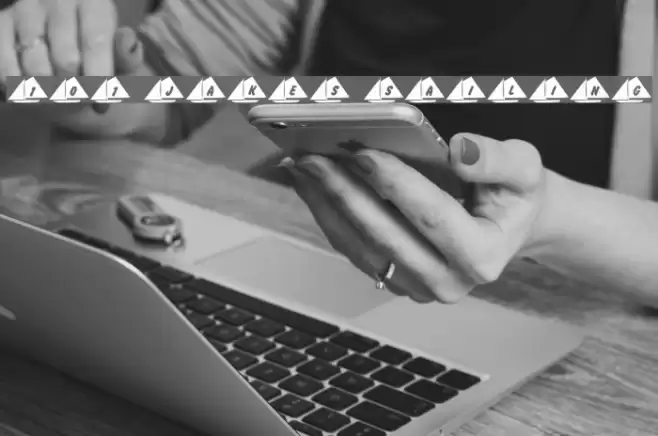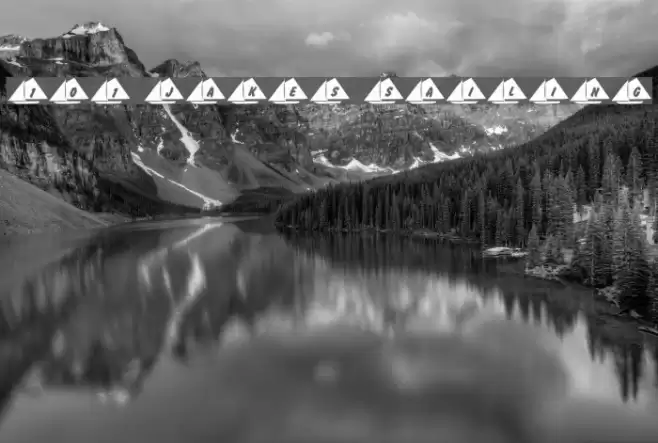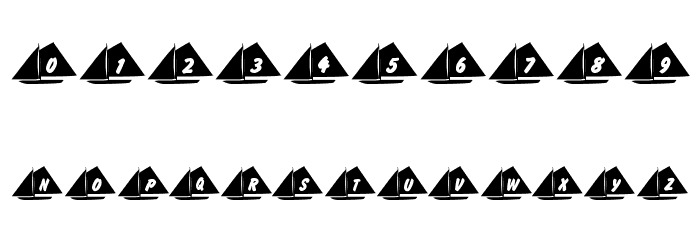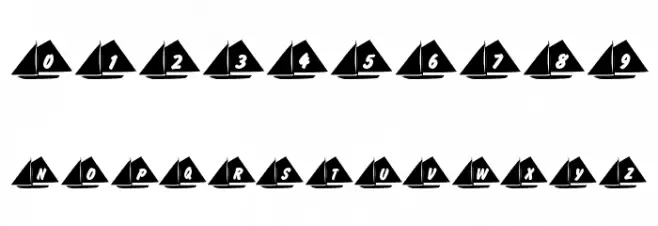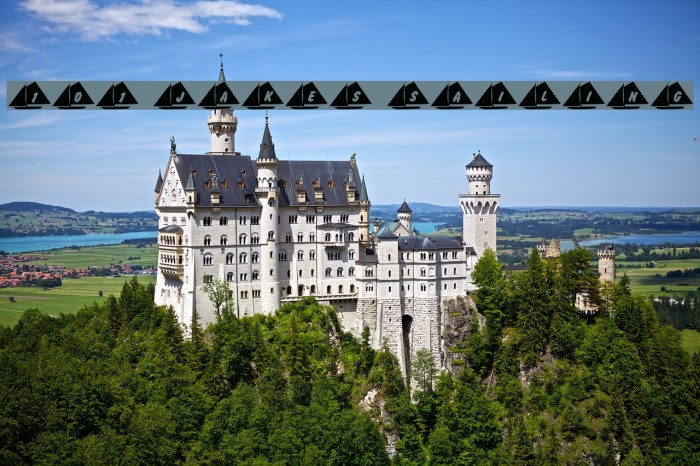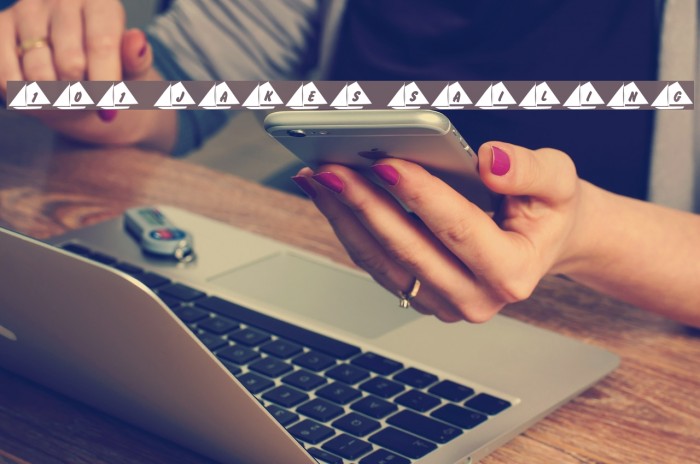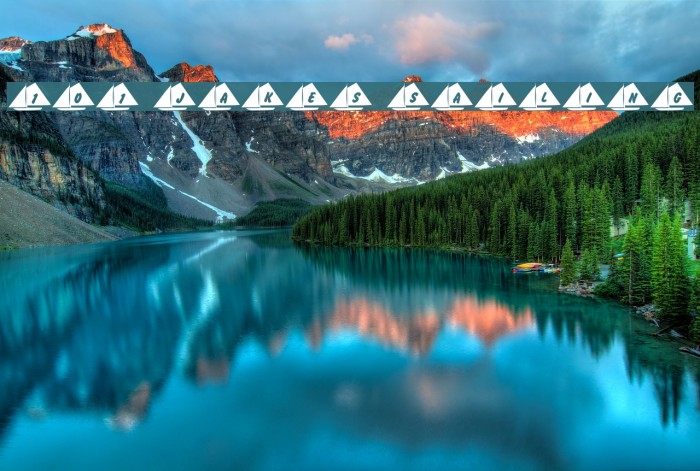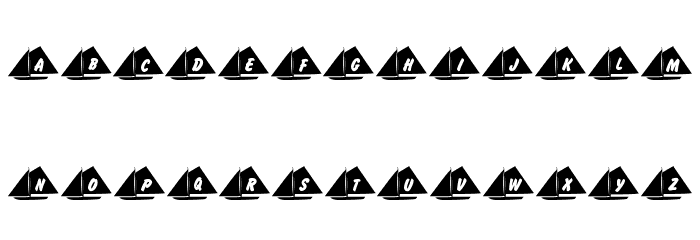
101! Jake's Sailing Font
101! Jake's Sailing Description
This font features a unique nautical theme, with each character cleverly integrated into the silhouette of a sailboat. The letters and numbers are bold and distinct, set against the triangular shape of sails, creating a striking visual effect. The design is playful yet sophisticated, making it ideal for projects that require a maritime or adventurous aesthetic. The font maintains a consistent style across uppercase, lowercase, and numerical characters, ensuring uniformity and readability. The special characters are also seamlessly incorporated into the sailboat motif, adding to the font's cohesive design.
A nautical-themed font with characters integrated into sailboat silhouettes from Uncategorized fonts.
- Proposed Projects: Ideal for maritime-themed posters, children's books, sailing event promotions, and nautical branding.